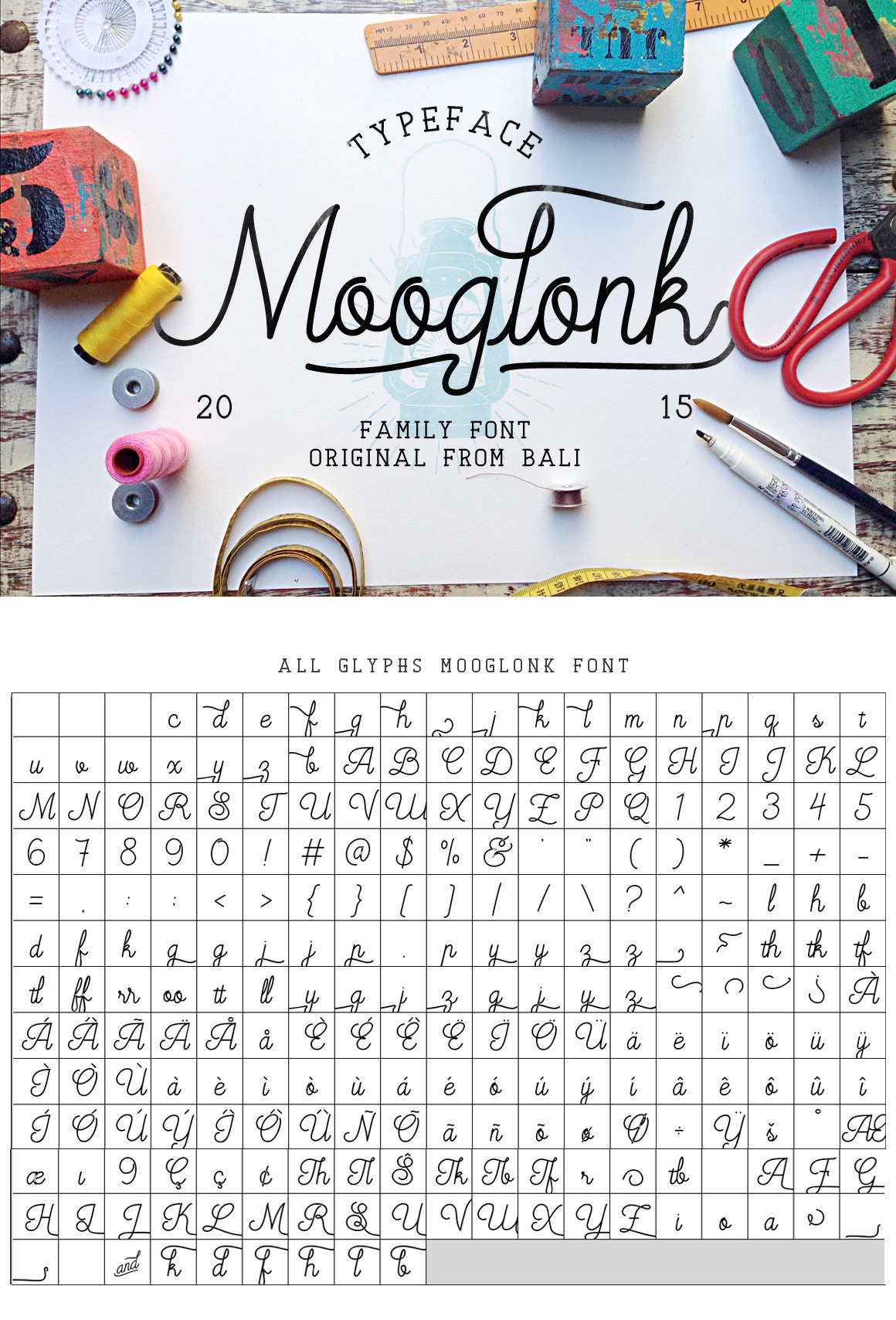
Mooglonk Font + Badges & Brush
Mooglonk font family there are two types of categories including script and serif font. Mooglonk script fonts using mono line elegant classic style, besides a lot of selection and its variant glyphs include miraculous ornament glyphs. To Mooglonk serif using vintage style and a little impressed firmly. All font includes a full set of capital and lowercase letters, as well as multi-lingual support, currency figures, numerals, and punctuation.
Mooglonk Font Family nice to be one of your new font collections. for the manufacture of logotype design, vintage badges, wedding name, retro style design and design concept of fun.